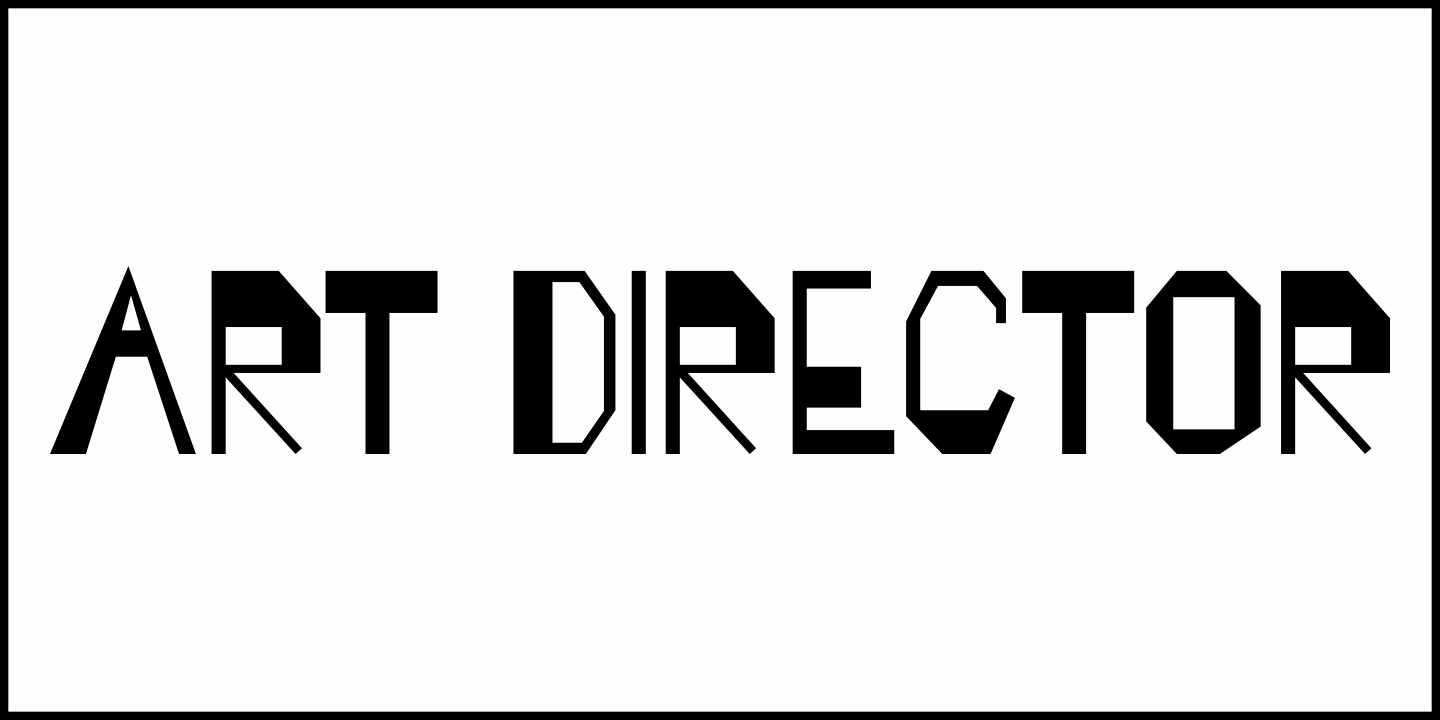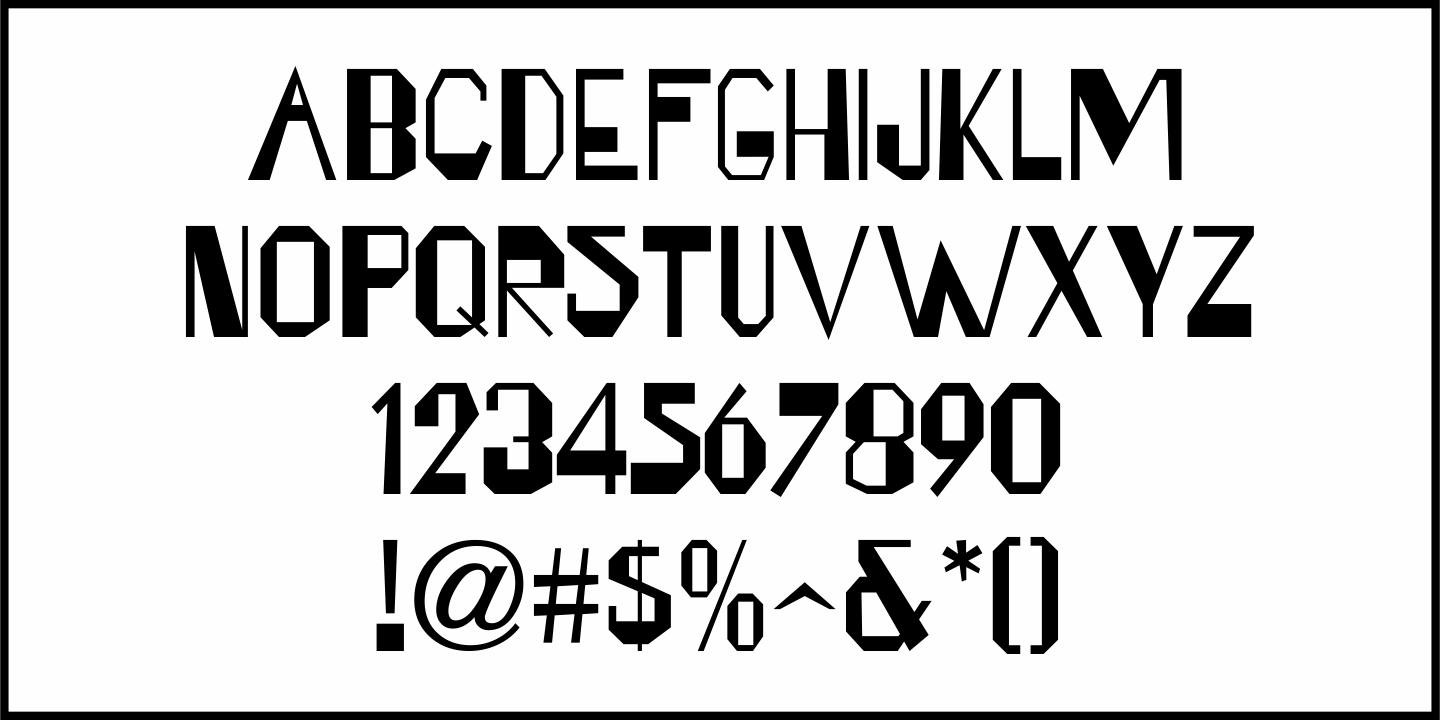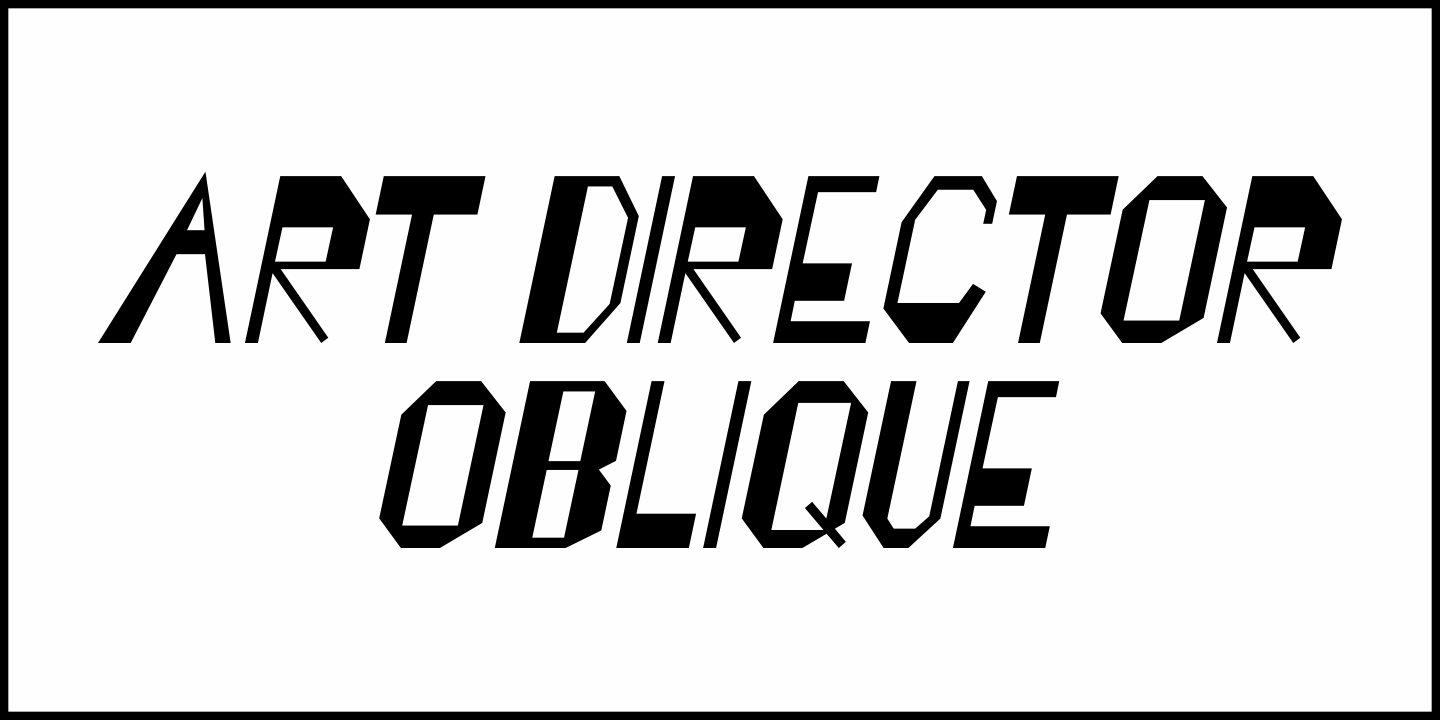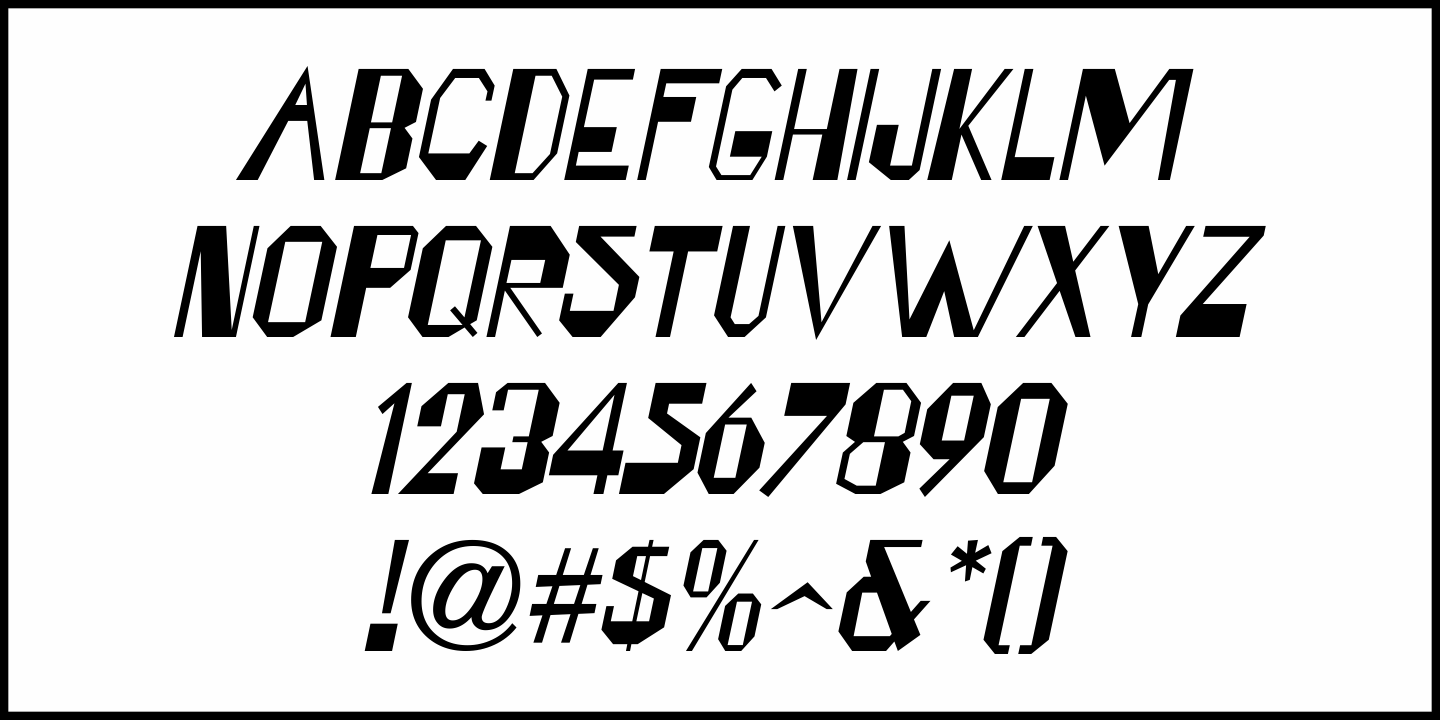
Art Director
Free-form hand lettering on a 1979 poster for the Washington, D.C. exhibition of watercolors and etchings by the Elie Abrahami inspired Art Director JNL, which is available in both regular and oblique versions.
This type of lettering was most popular in the late 50s through the mid-60s for movie titles, greeting cards and poster text.
Art Director JNL Regular by Jeff Levine Fonts